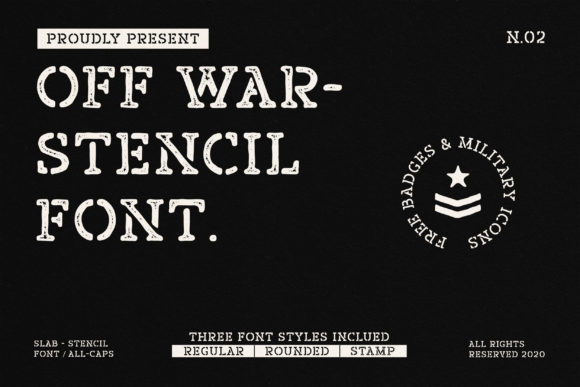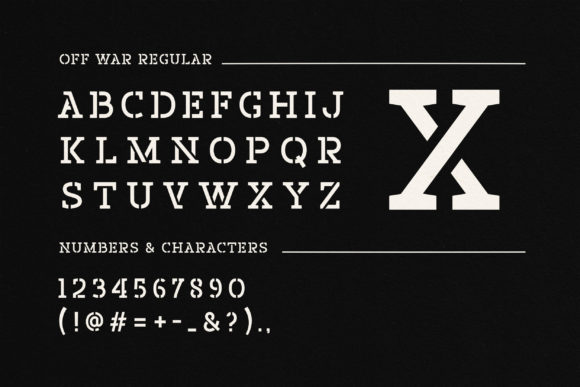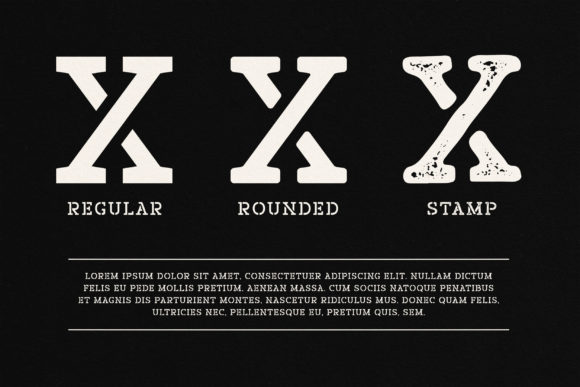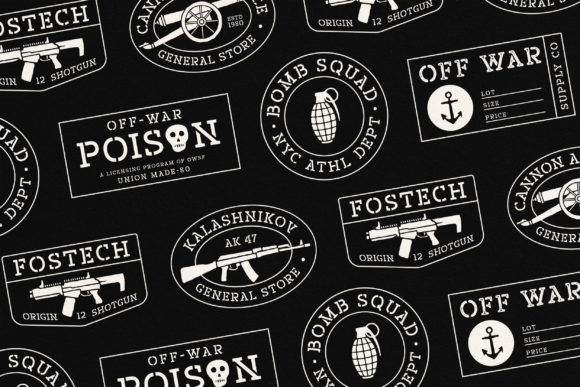
Off War Font: Bold Stencil Typography for Badges & Logo Design
About the Off War Font
Presenting Off War Font, a unique and stylish typeface that will make your work stand out. Off War is a slab serif stencil font. It comes in three styles: regular, rounded and stamp. This unique font is perfect for logos, badges, apparel, posters and more.
Its strong, geometric forms make Off War ideal for headlines, branding applications requiring a bold statement, and posters demanding immediate visual impact. The stencil style lends itself well to vintage-inspired designs and projects with a slightly rebellious or utilitarian feel. However, its low x-height and thick strokes make it less suitable for body text or UI elements where readability is paramount.
Consider pairing Off War with a clean sans-serif like Futura for a modern contrast, or a more delicate script font such as Allura for a touch of elegance, depending on the desired overall aesthetic. The rounded style works particularly well with playful, geometric sans-serifs. The stamp style can be effectively paired with a simple serif for a vintage or heritage feel.
Off War’s overall personality is bold and assertive, yet retains a touch of approachability thanks to its rounded variant. It suits brands projecting strength, authenticity, and a degree of ruggedness.